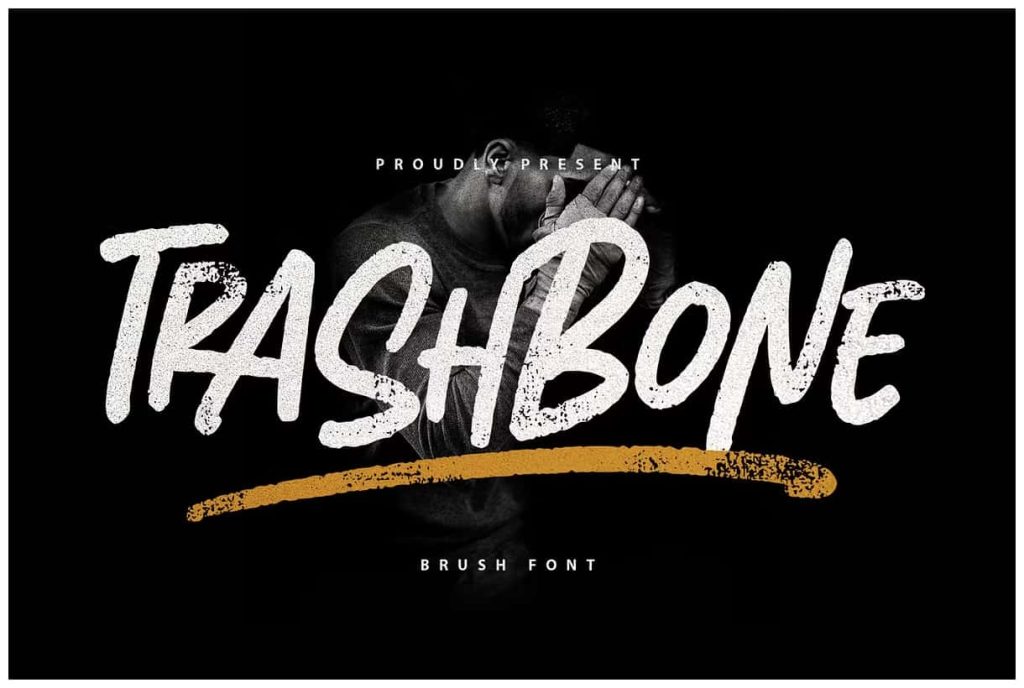
TrashboneleastedJune 21, 2025Fonts Introducing Trashbone, a playful marker font, designed with an additional rusty effect applied to the strokes. Download